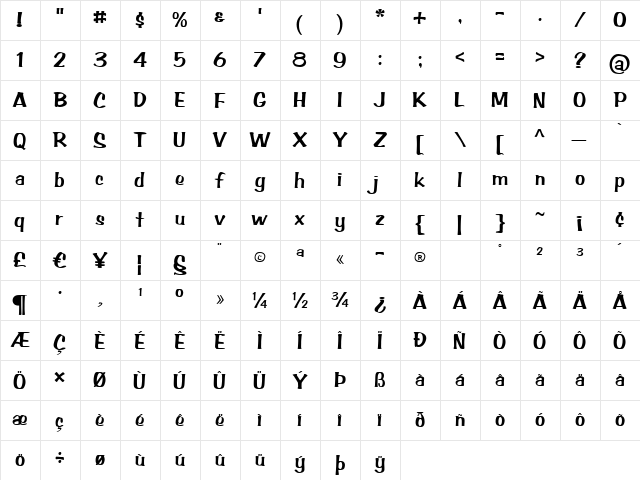
Dance Craze BV Regular
Design Context for Dance Craze BV Typeface
Dance Craze BV is a composed and adaptable typeface that performs quietly and consistently across a wide range of design contexts.